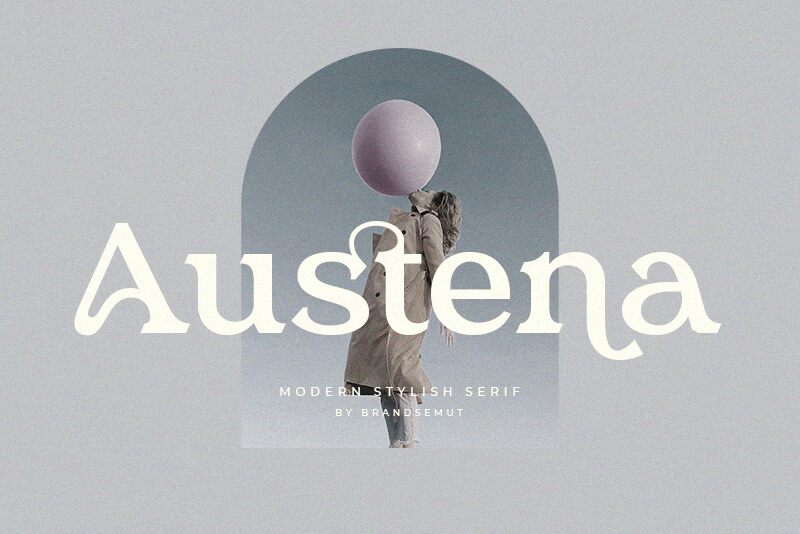
Austena
Austena, a mesmerizing serif font designed by BrandSemut, captivates with its elegant curves and graceful serifs. Its semi-expanded width adds a touch of uniqueness, making it perfect for projects that require a balance of sophistication and readability.
Austena's versatility shines through in various applications, such as editorial designs, book covers, and wedding invitations. Its timeless charm brings an air of refinement to fashion magazines, while adding warmth to branding materials like logos and packaging.
With Austena, every project becomes a stunning work of art that effortlessly captures attention and leaves a lasting impression.